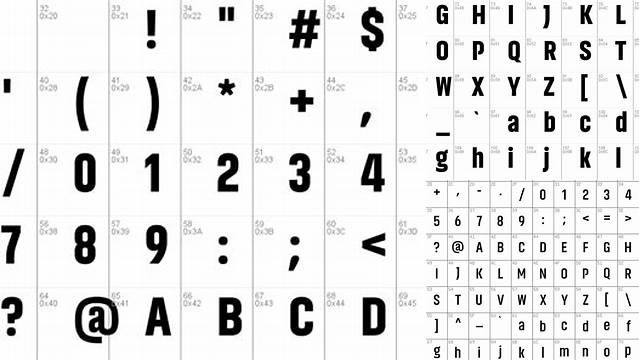
What is Akhand Bold Font?
First things first, what exactly is the Akhand Bold font? The Akhand Bold font is a striking and versatile typeface known for its strong presence and readability. It's a member of the Akhand family of fonts, which are typically designed with a focus on clarity and impact. The "Bold" in the name signifies that this particular style is heavier and more pronounced than the regular Akhand font, making it perfect for headlines, titles, and any text that needs to grab attention. This font is a popular choice because it is a design marvel, it is a fantastic font to use because it balances visual appeal and readability. Whether you're a graphic designer, a web developer, or just someone who loves playing with fonts, Akhand Bold offers a fantastic blend of style and functionality. It's the kind of font that can elevate your designs, giving them a modern and professional feel. The key to using the Akhand Bold font effectively is to understand its strengths and limitations. Because of its bold nature, it's best used sparingly, focusing on key elements that you want to highlight. Think of it as the exclamation point of your text – use it wisely to make the biggest impact. This font is all about making a statement. It's not a subtle font; it's a bold and confident one, so make sure your design reflects that energy. Also, consider the context of where you're using the font. Will it be on a website, in a print advertisement, or in a presentation? Each medium has its own requirements, and the Akhand Bold font can adapt to them beautifully if used appropriately.
Why Choose Akhand Bold?
So, why should you choose Akhand Bold over other fonts? Well, there are several compelling reasons. Firstly, its strong and clear design makes it incredibly readable, even at smaller sizes, which is a huge plus for any design project. It's perfect for headings, titles, and any text that needs to stand out. Moreover, the Akhand Bold font carries a modern and professional look, making it suitable for a wide range of applications, from websites and logos to posters and presentations. It exudes a sense of confidence and authority. This font can communicate a message of strength and reliability, making it an excellent choice for brands that want to project a strong image. Beyond its aesthetic appeal, the Akhand Bold font is also highly versatile. It works well in both digital and print media, and it pairs nicely with other fonts, allowing you to create a cohesive and visually appealing design. Plus, the Akhand Bold font comes in a variety of weights and styles, which allows you to further customize the look and feel of your projects. This flexibility ensures that you can find the perfect match for your specific needs. In short, opting for the Akhand Bold font means you're choosing a typeface that combines readability, style, and versatility, making it a valuable asset for any creative project. It’s a solid choice that delivers impact.
Using Akhand Bold in Your Designs: Best Practices
- Headings and Titles: Use Akhand Bold mainly for headings and titles. Its strong presence will instantly grab the reader's attention and establish a clear hierarchy in your design.
- Limited Use: Avoid using it for large blocks of text. Due to its bold nature, it can be difficult to read in large amounts. It's best to use it sparingly.
- Pairing Fonts: Pair Akhand Bold with a more readable font for body text. This creates a good balance between visual appeal and readability. Popular pairings include fonts like Open Sans, Lato, or Montserrat.
Explore these alternatives to find a font that suits your project's needs and design aesthetic. They can provide similar boldness and readability while offering their own unique style.